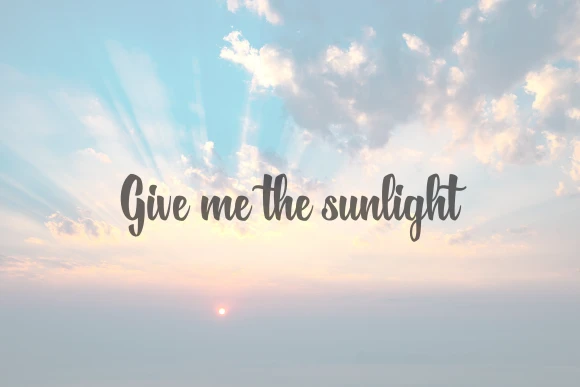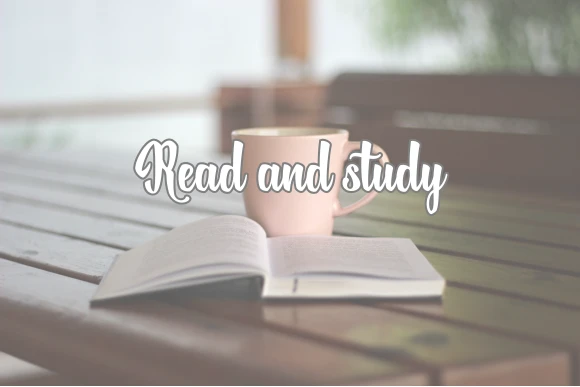
Start every project with a bright, uplifting touch using Morning Font ā a fresh handwritten script inspired by calm mornings and new beginnings. Its soft, flowing strokes give your designs a natural, welcoming look thatās perfect for lifestyle brands, bloggers and creators who want their text to feel relaxed yet polished. Use Morning Font for blog headers, Instagram posts, greeting cards, invitations, packaging, logos, apparel, product labels and branding materials. With its easy readability and versatile style, this typeface works beautifully in both print and digital applications. Key Features: